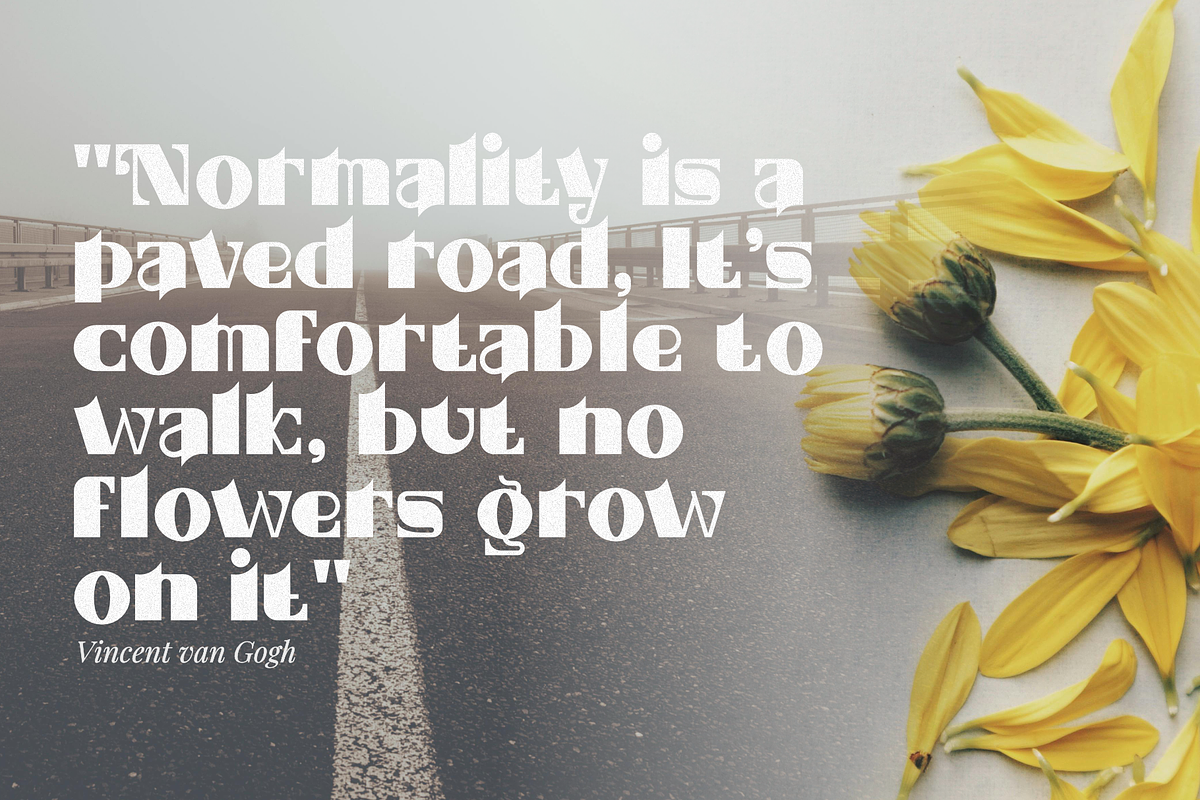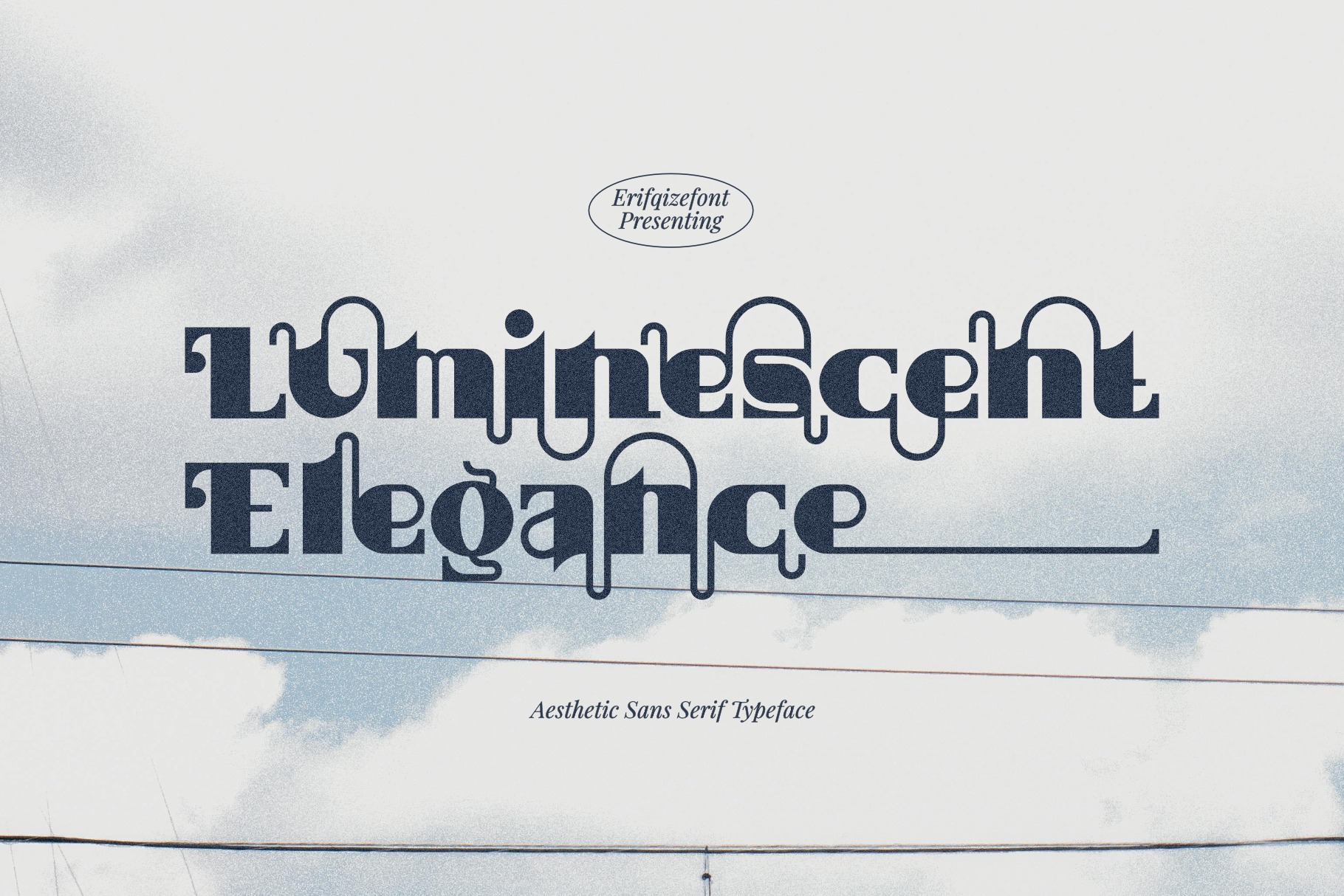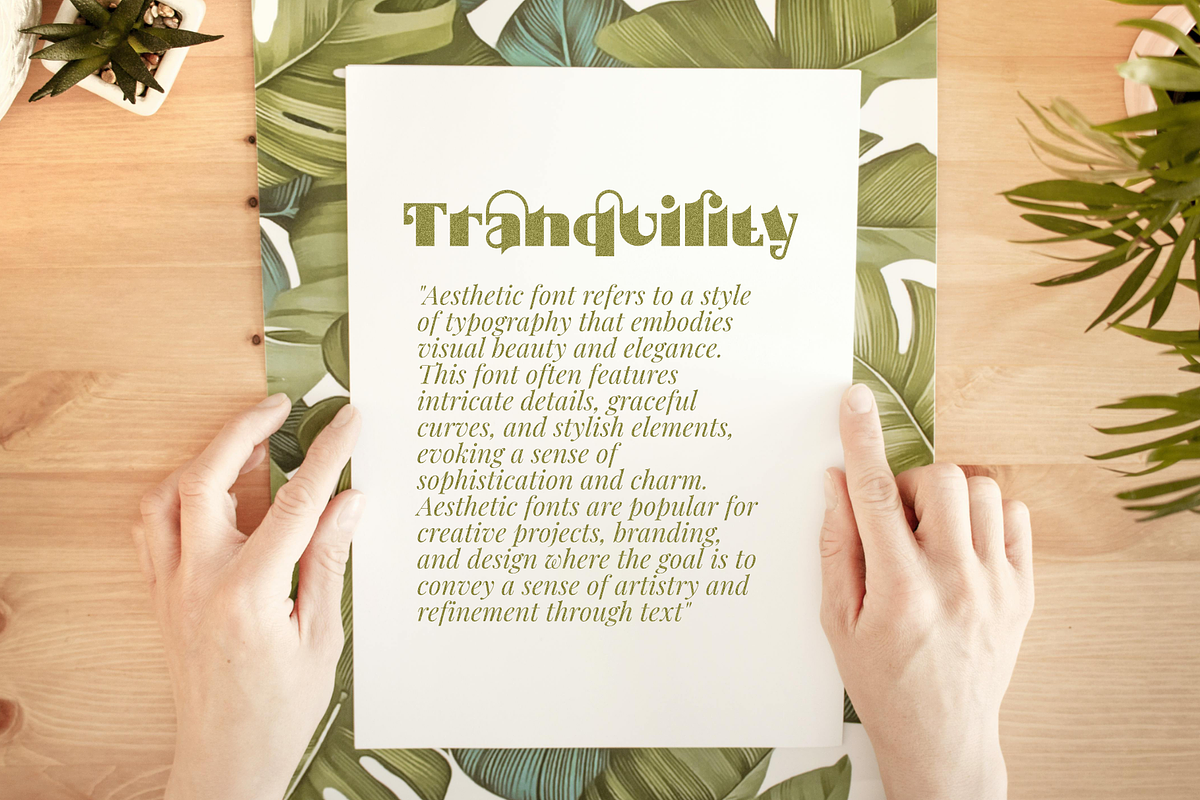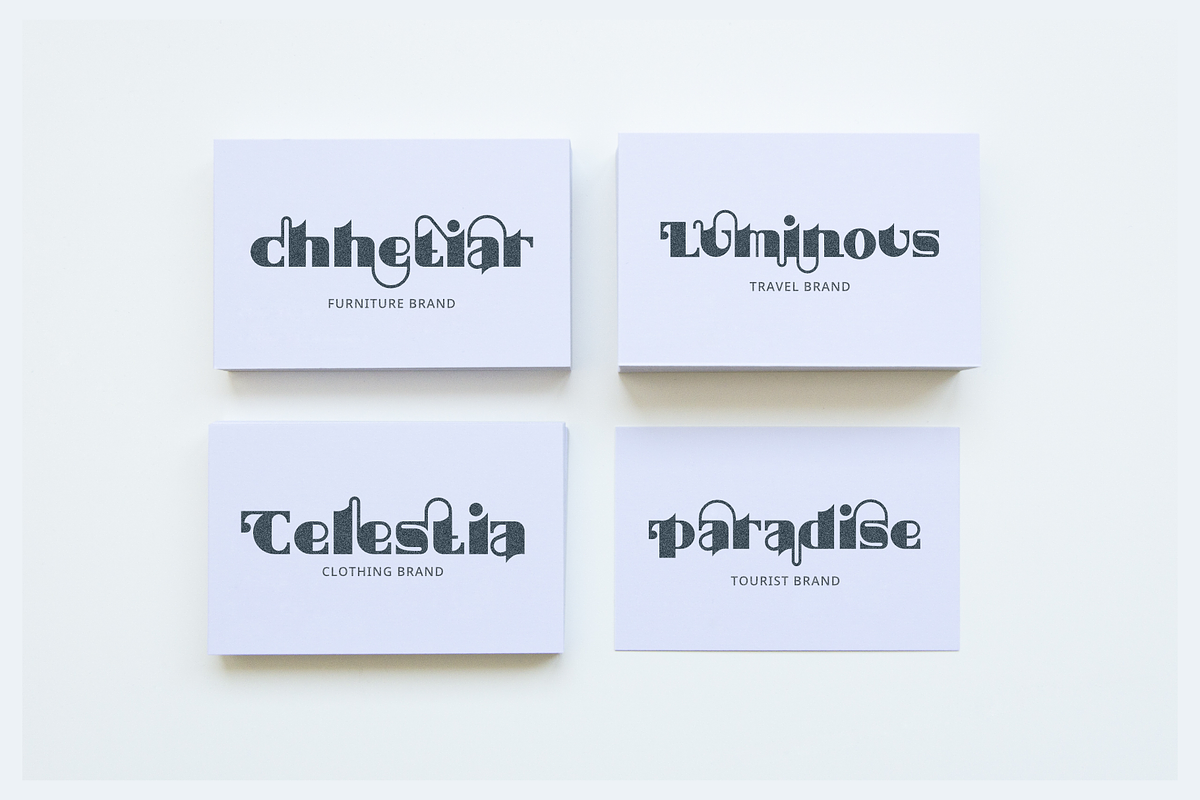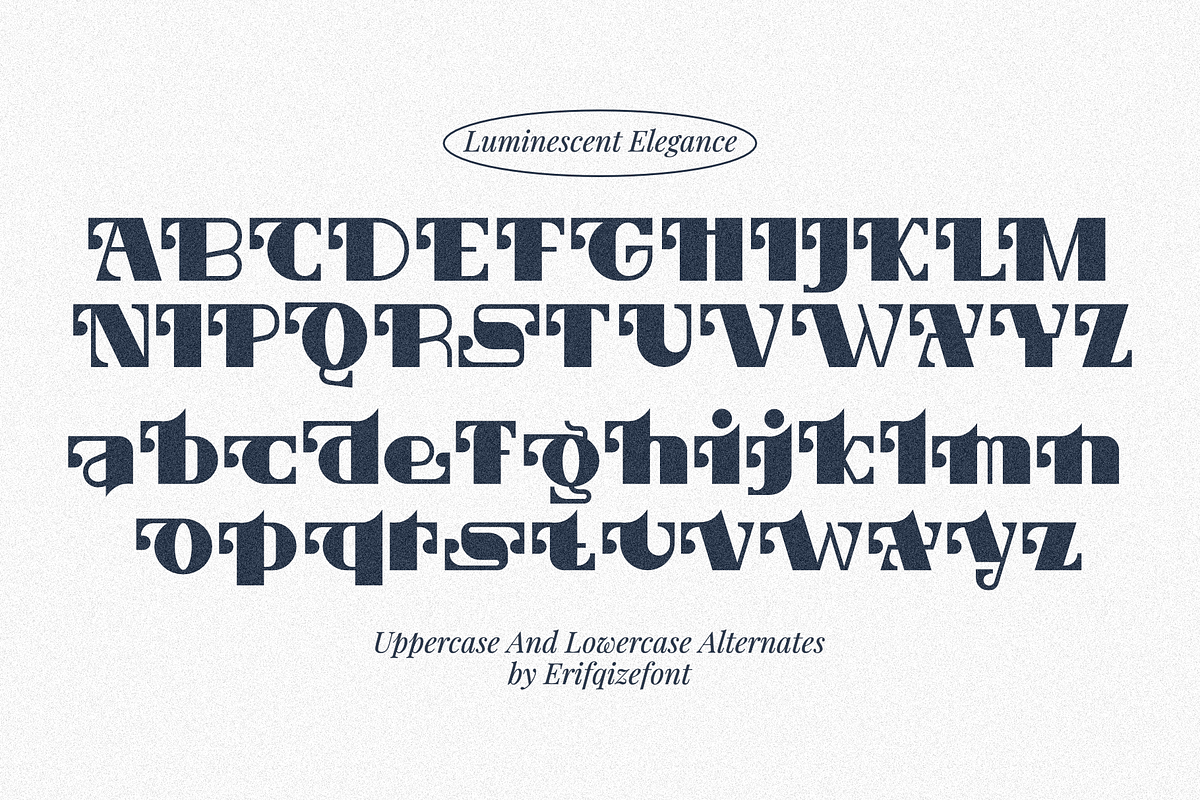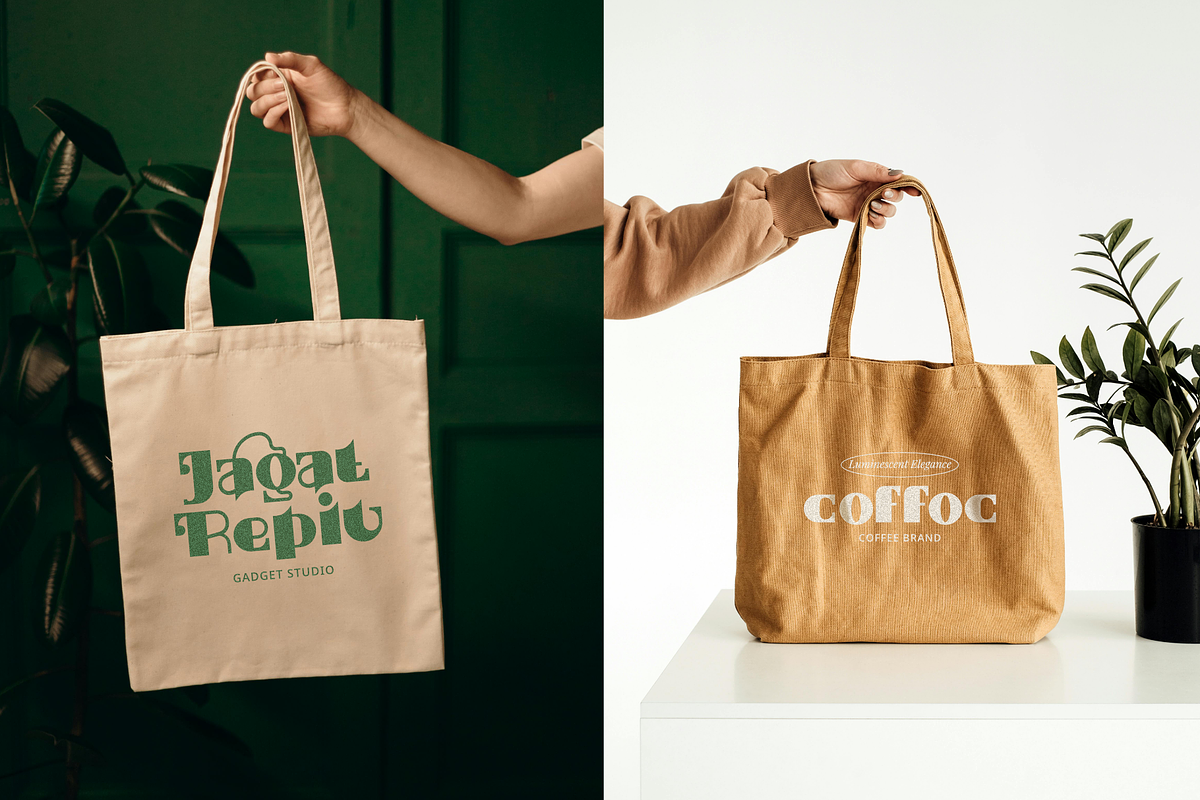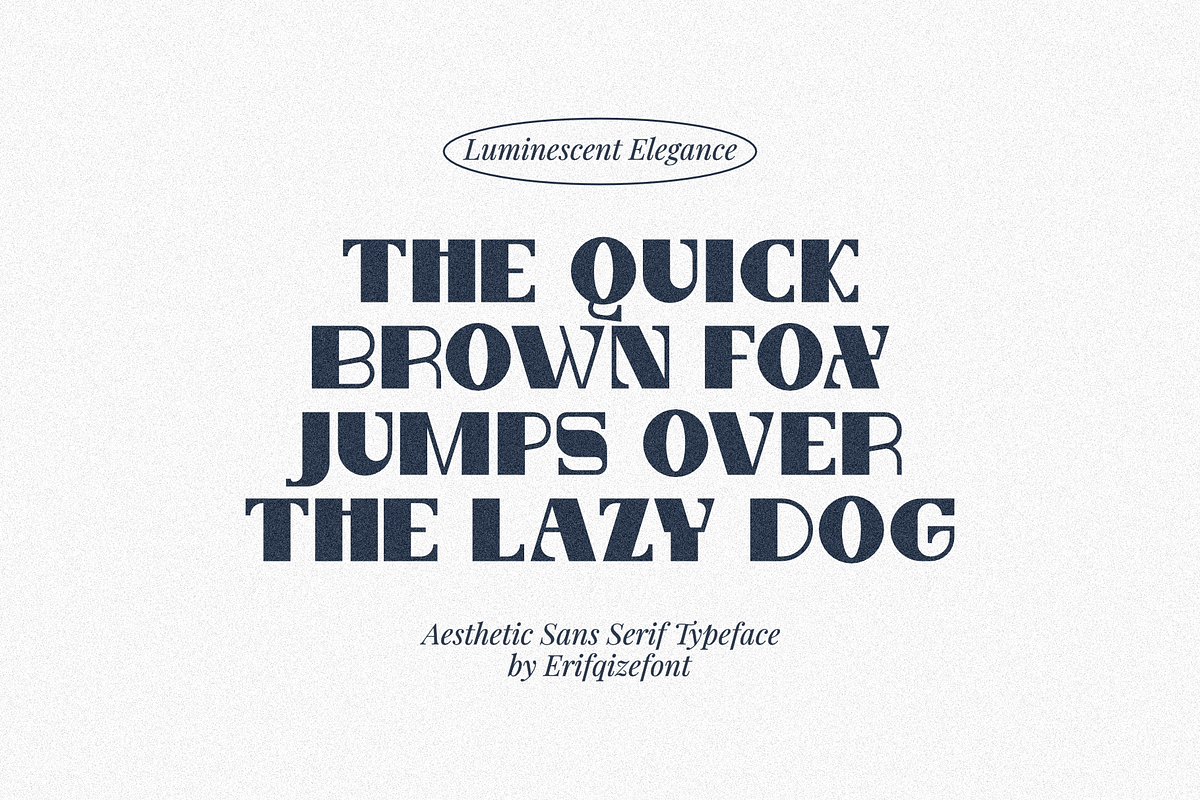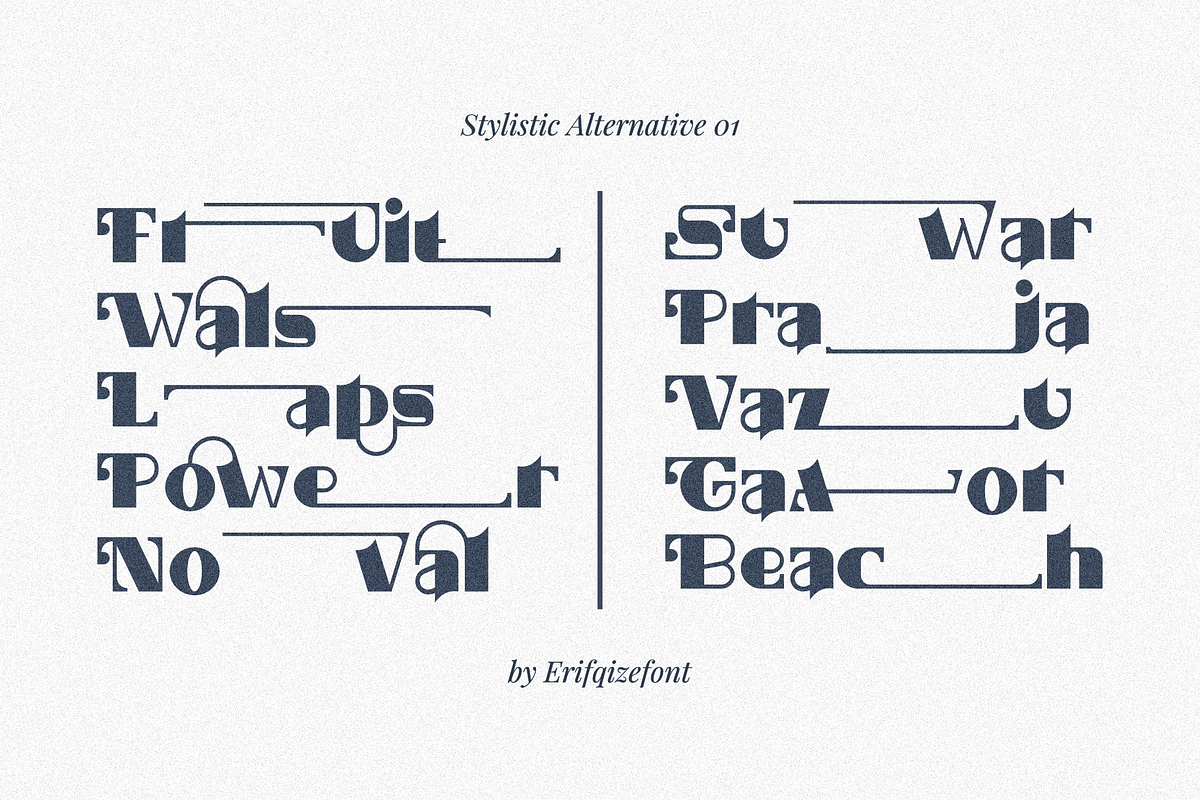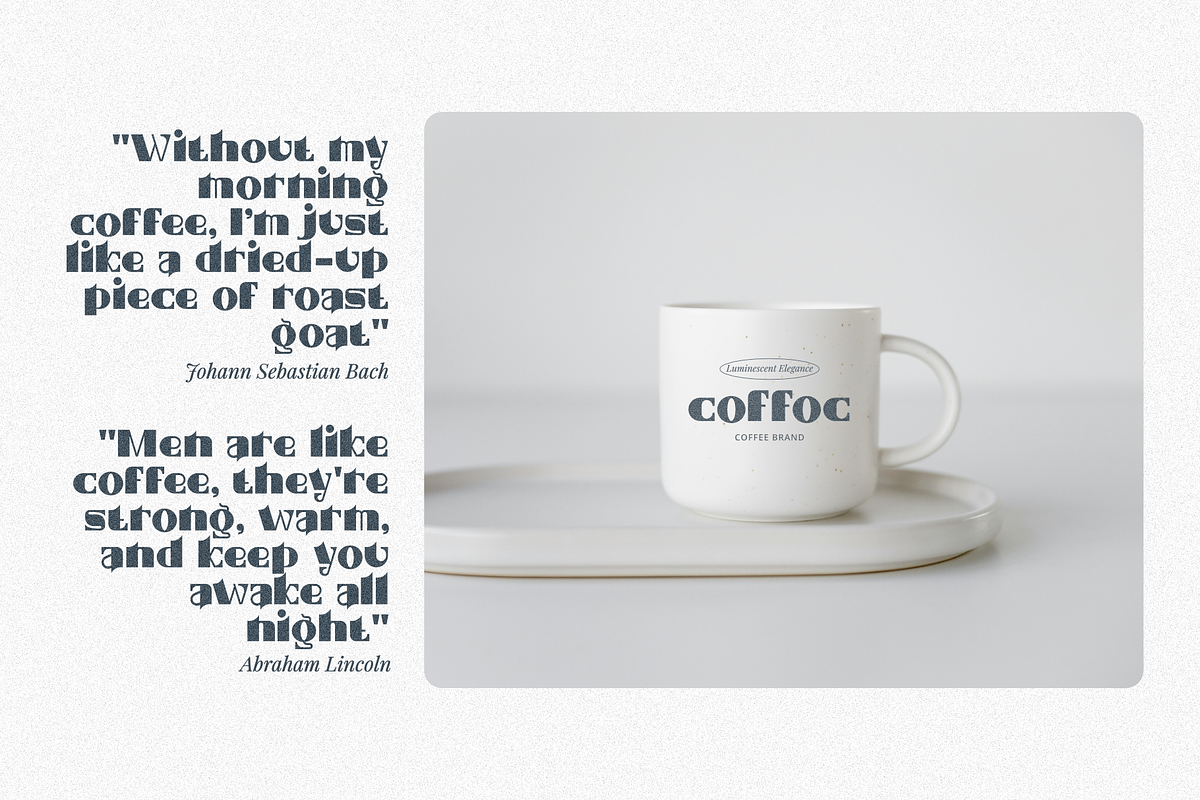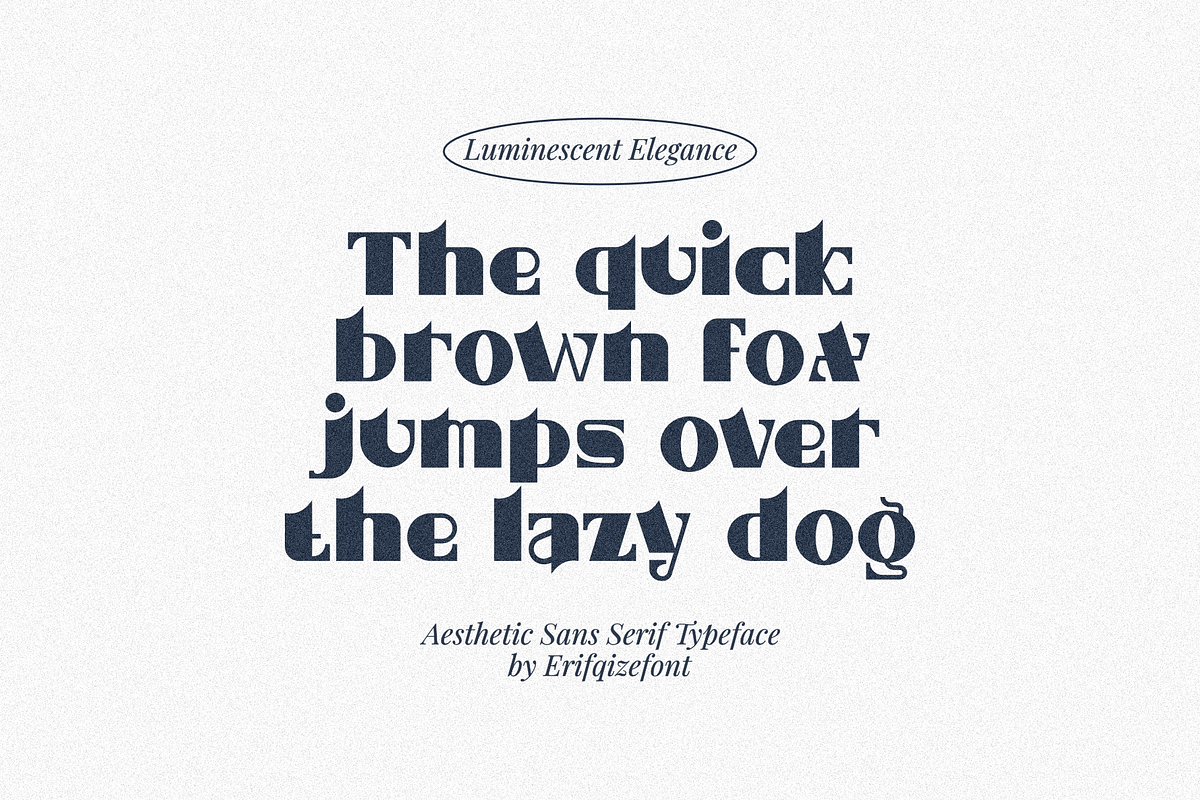
Luminescent Elegance Font
INTRODUCING Luminescent Elegance
Luminescent Elegance is a modern, elegant and aesthetic sans serif font. Luminescent Elegance is well-suited for advertising, branding, logotypes, packaging, titles, headlines and editorial design. Luminescent Elegance was built with openType features make your project will be perfect.